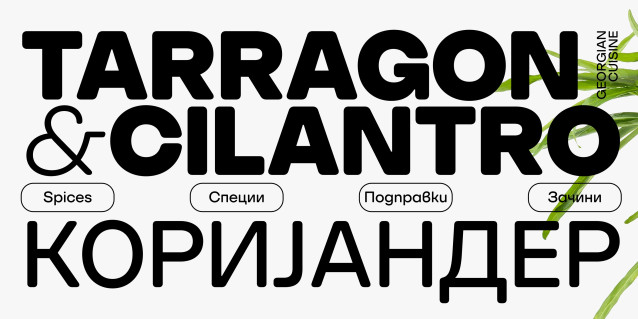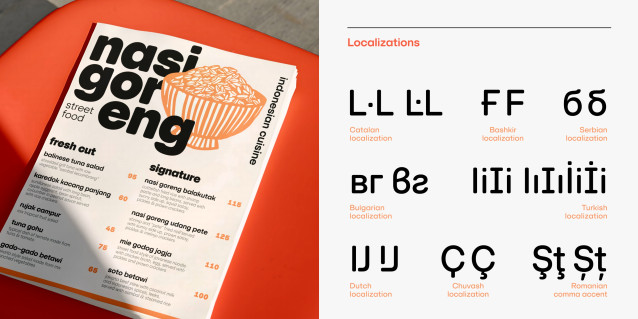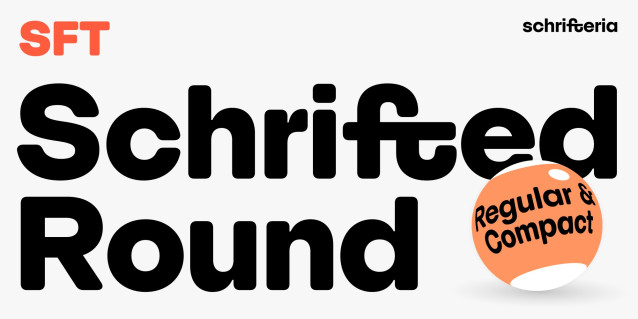
SFT Schrifted Round Font Family
SFT Schrifted Round Font Family is a geometric sans with softened edges, clear and inviting at a glance. Concept SFT Schrifted Round takes the rational framework of SFT Schrifted Sans and softens it with rounded corners and smoother contours. The goal is a modern, minimalist voice that keeps precision intact while adding a touch of warmth. It’s built for real work — interfaces, packaging, wayfinding, editorial — where typography needs to solve problems cleanly without feeling cold. The family offers enough range to set calm, efficient text and, when needed, bring more character to expressive headings. Graphics Visually, SFT Schrifted Round translates crisp geometry into tactile shapes. Corners are softened, and proportions remain generous for comfortable reading on screens and in print. The rounding is purposeful rather than decorative — it smooths rhythm, balances texture, and adds a subtle human presence to grids and systems that value precision. Family The core appearance is a rounded geometric sans with thoughtful spacing and optical balance. In lighter weights it reads as clean and unobtrusive; in bold styles it becomes confident and expressive. Use default styles for dependable text, then unlock stylistic sets to introduce a more distinctive headline voice. Figure options and OpenType features support editorial and data-heavy layouts, so one family can carry both the informative and the expressive parts of a design.